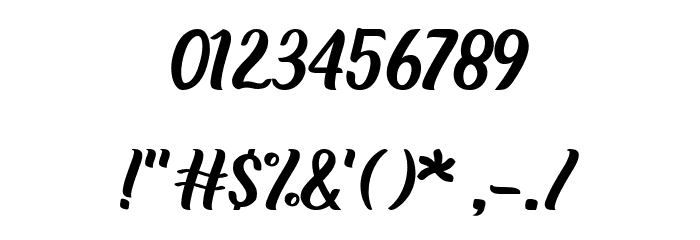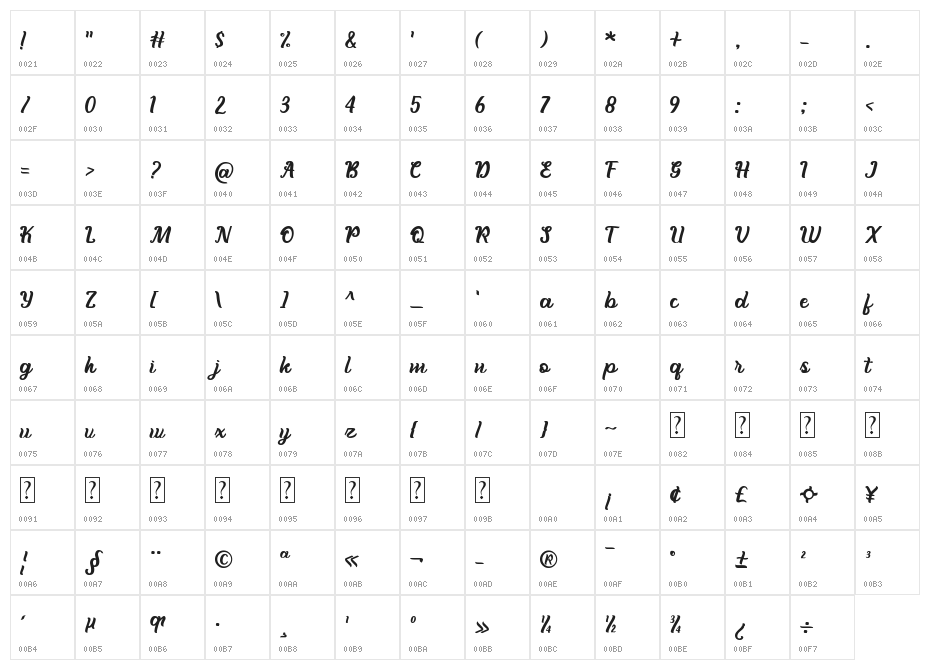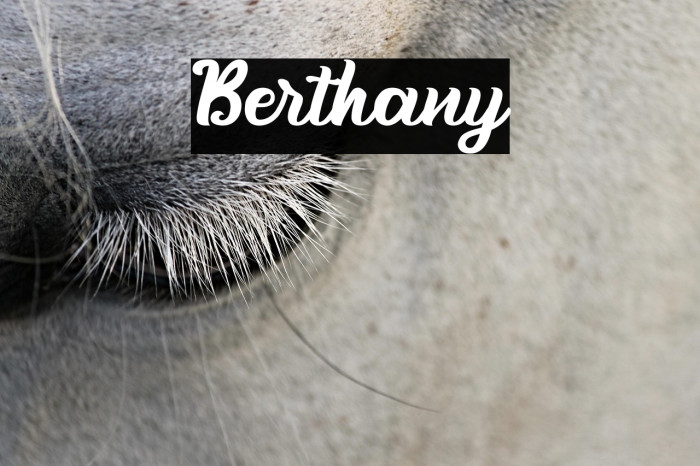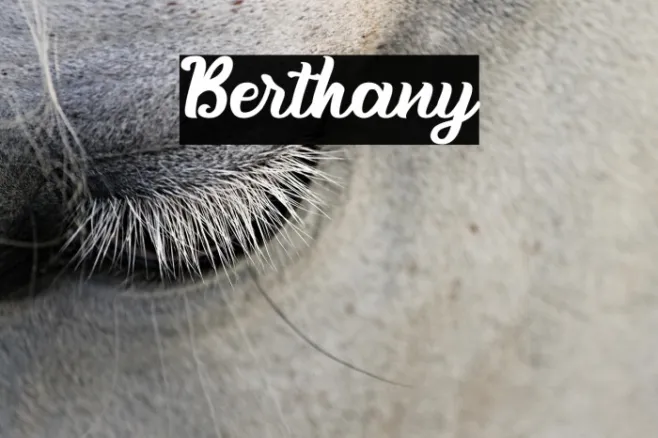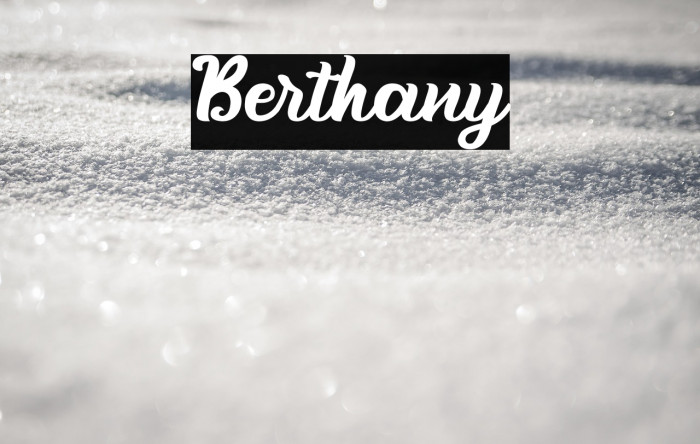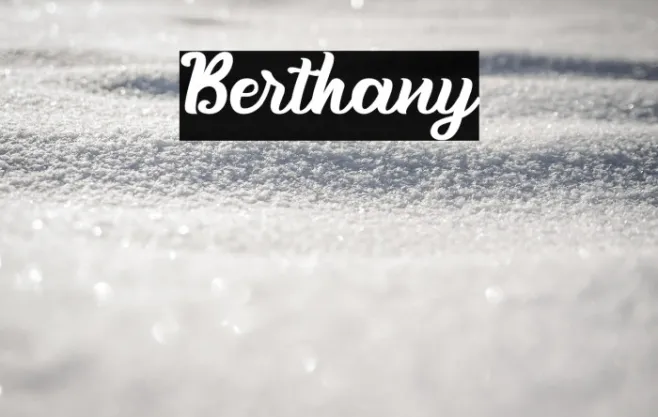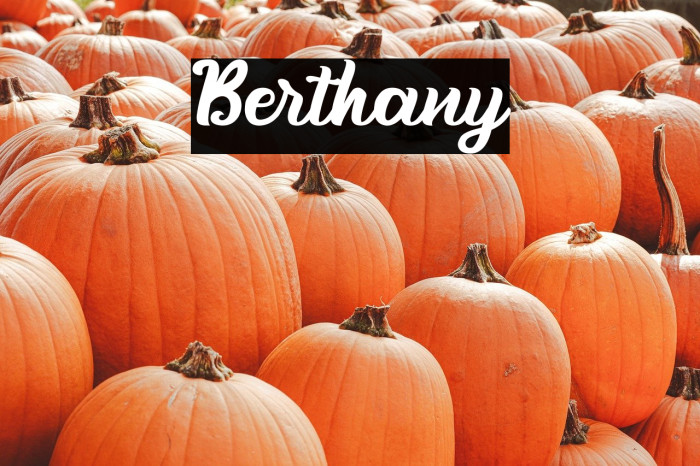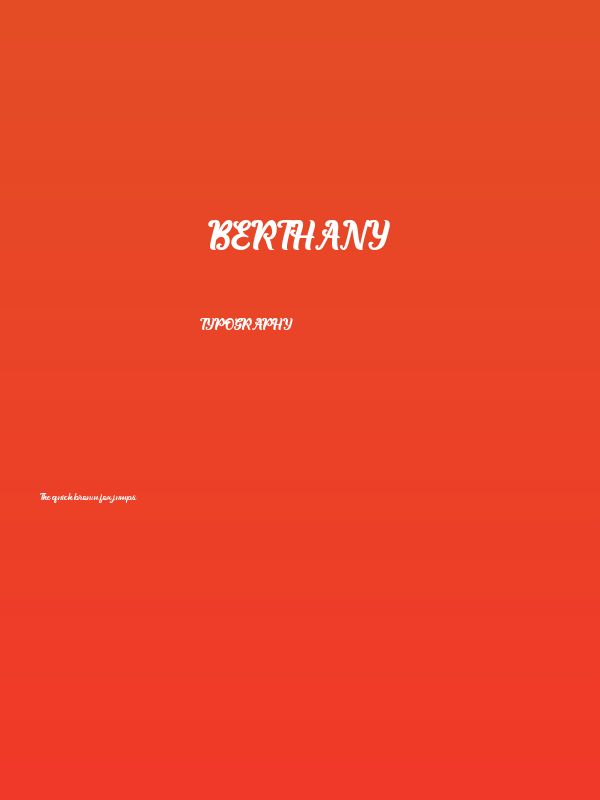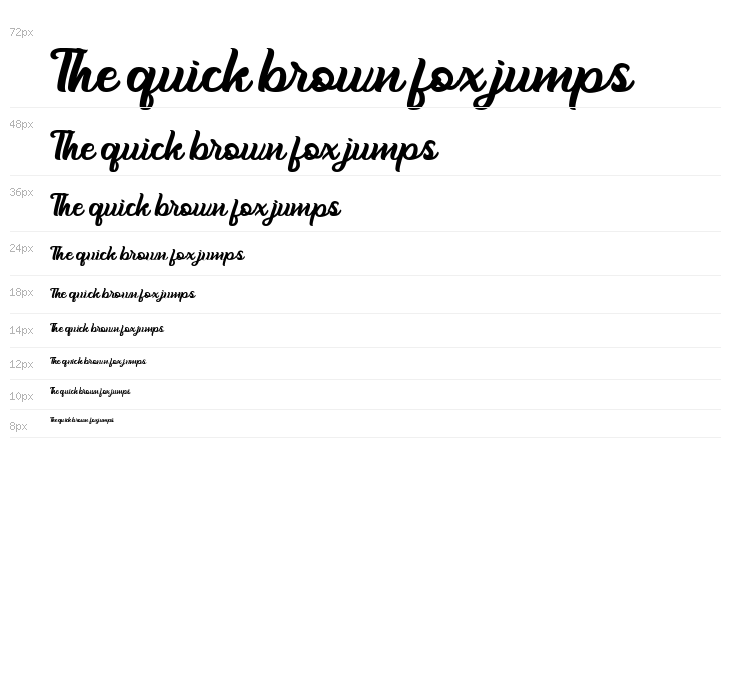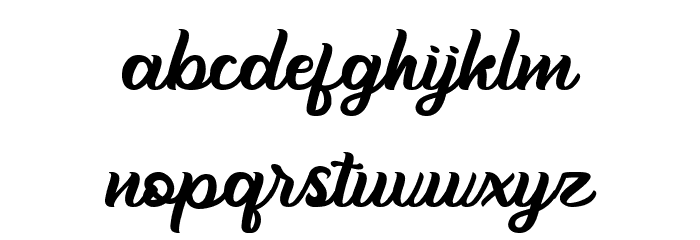
Berthany Font
Berthany Description
This font features a bold and flowing script style, characterized by its elegant and cursive letterforms. The uppercase letters are particularly ornate, with sweeping curves and a sense of motion that adds a dynamic quality to the text. The lowercase letters maintain a consistent style, offering a harmonious blend with the uppercase. The numerals are clear and follow the same cursive theme, ensuring readability while maintaining the font's decorative nature. Special characters are thoughtfully designed to match the overall aesthetic, making this font suitable for creative and expressive projects.
| Proposed Projects | Ideal for wedding invitations, greeting cards, branding, and decorative headlines. |